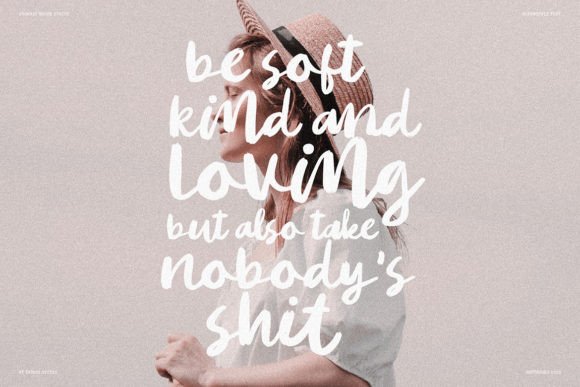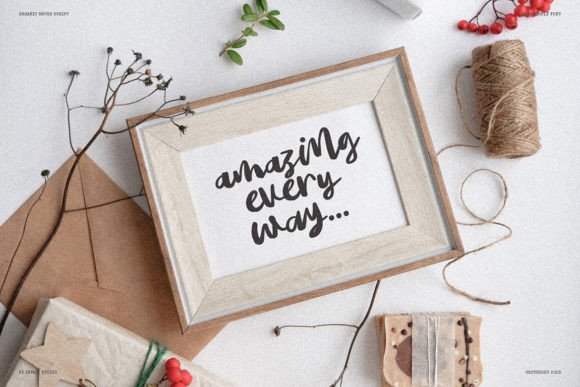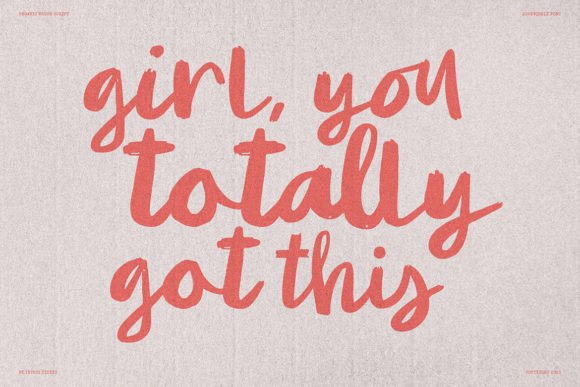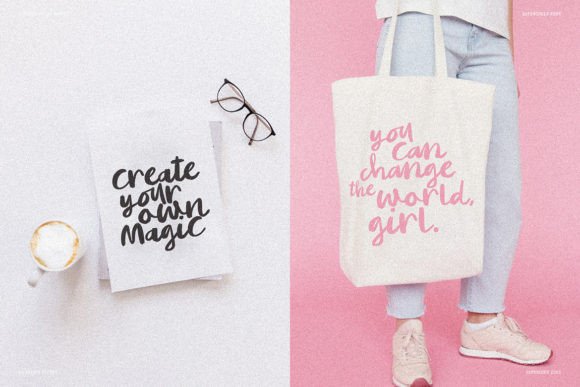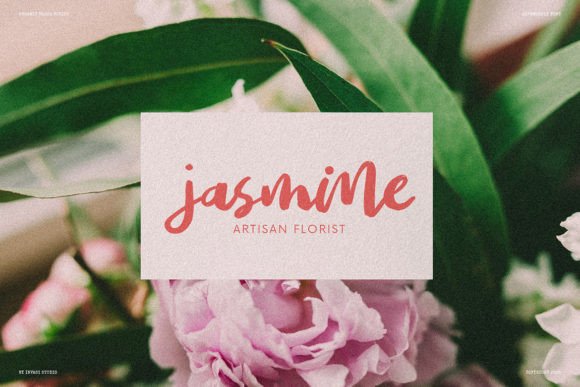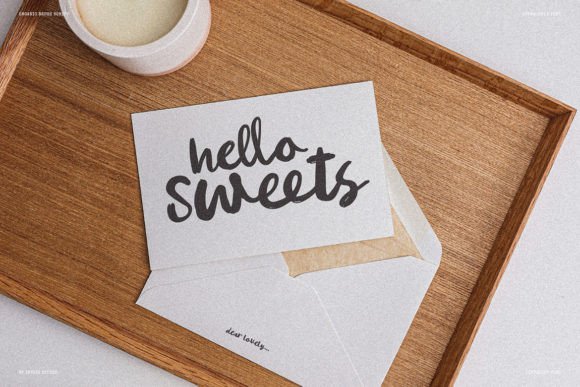
Introduction to Hopewishly Font
Have you ever been in the midst of a creative project, pouring your heart and soul into bringing your vision to life, only to be held back by the perfect font to match your style? That’s where the magical world of typography comes in, and for many designers, the search for the perfect font can be a daunting task. But what if I told you that there’s a font that’s about to change the game for your next high-quality, creative project?
Meet the Hopewishly Font, a stunning handwritten brush font that’s taking the design world by storm. With its unique, organic appearance, this versatile font is the perfect addition to any design resource, and the best part? It’s available for a free download, complete with a transparent background, making it incredibly easy to use in your next project.
Key Features of Hopewishly Font
- High-quality design resource suitable for creative projects and presentations.
- Unique, modern design style with a transparent background, ideal for digital use.
- Perfect for designers, artists, and creatives looking for a high-quality, unique design resource.
Honest Review: Hopewishly Font
As a designer, I’m always on the lookout for high-quality design resources to elevate my creative projects. The Hopewishly Font has caught my attention, and I’m excited to share my honest review with you.
What works well: ✨ The Hopewishly Font is a beautiful, elegant script font that’s perfect for adding a touch of sophistication to your designs. The transparent background makes it easy to layer and combine with other elements, giving you endless creative possibilities. I love using it for titles, headings, and even quotes.
Here are some of my favorite features:
- High-quality, vector-based design for crisp and clear results
- Transparent background for easy layering and customization
- Perfect for creative projects that require a touch of elegance and sophistication
⚠️ Limitations: While the Hopewishly Font is a great addition to any designer’s toolkit, I do find that it can be a bit too ornate for some projects. It’s best suited for designs that require a high level of sophistication and elegance.
Overall, I’m impressed with the Hopewishly Font and would highly recommend it to designers looking for a high-quality, creative solution for their projects.
Tips for Getting the Most Out of Hopewishly Font
For the best results, use Hopewishly Font in conjunction with a transparent background to create a clean and minimalist design. Experiment with different font sizes and colors to add depth and visual interest to your project.
Hopewishly Font is perfect for a variety of creative projects, including graphic design, digital art, and even personal branding. With its free download option, you can use it as a design resource without any limitations.